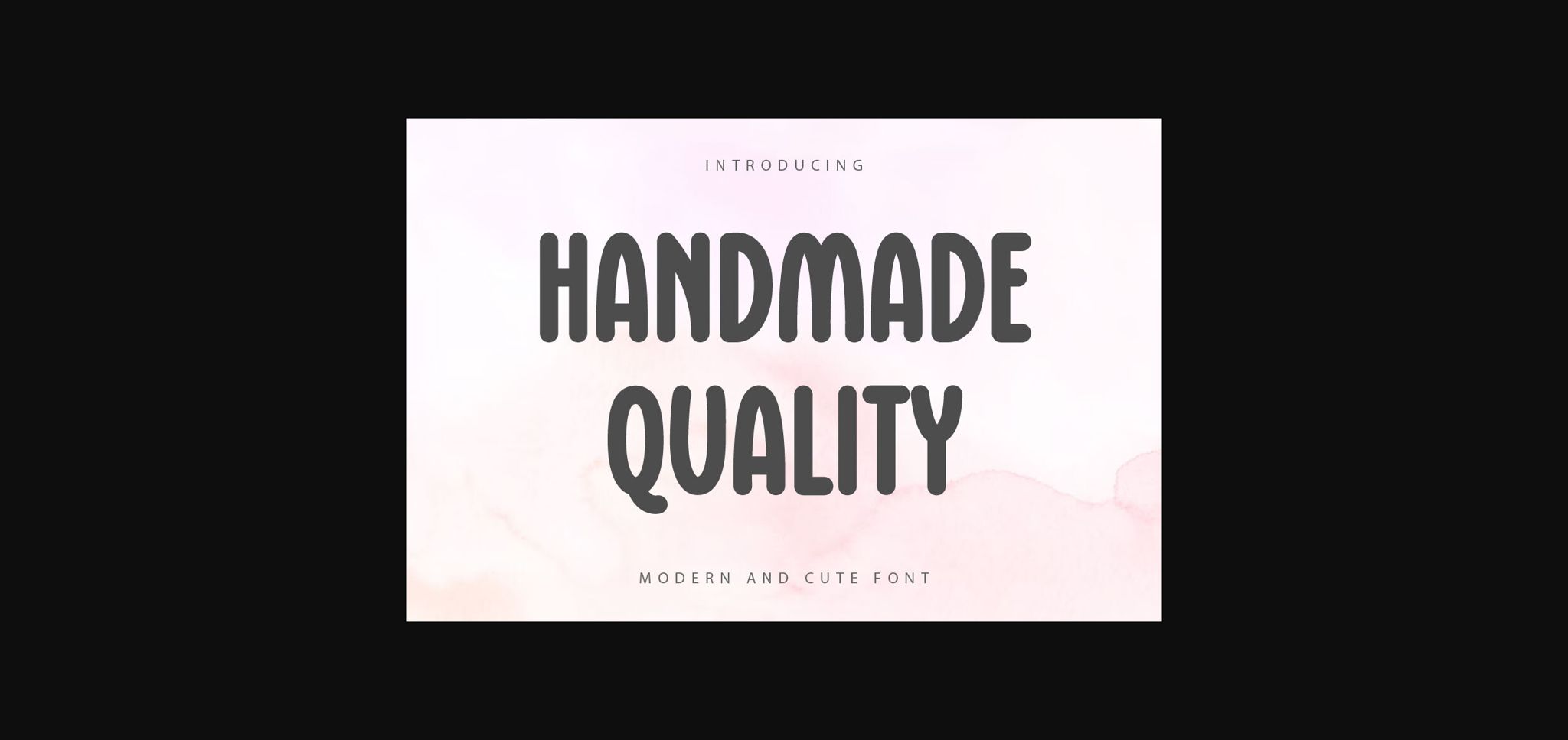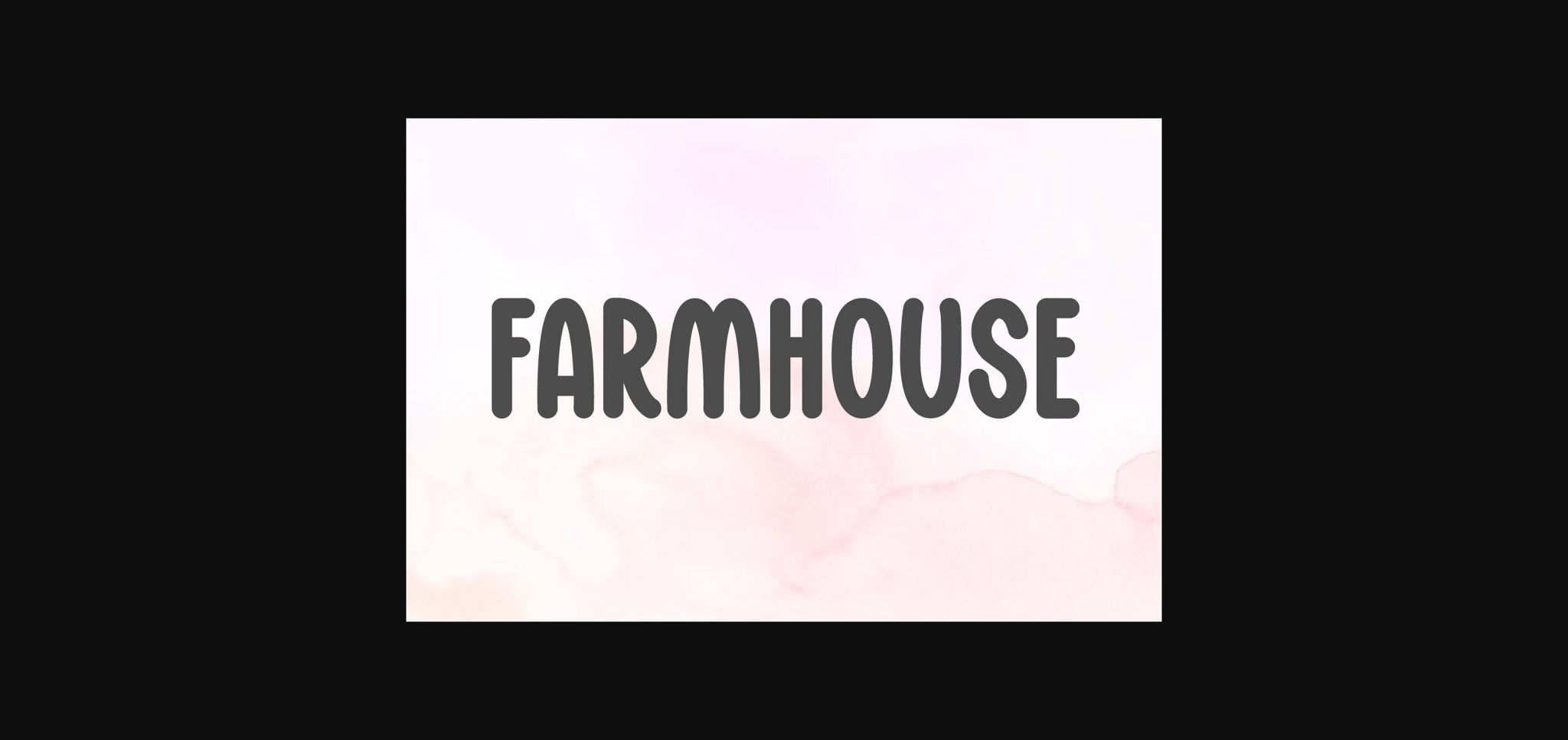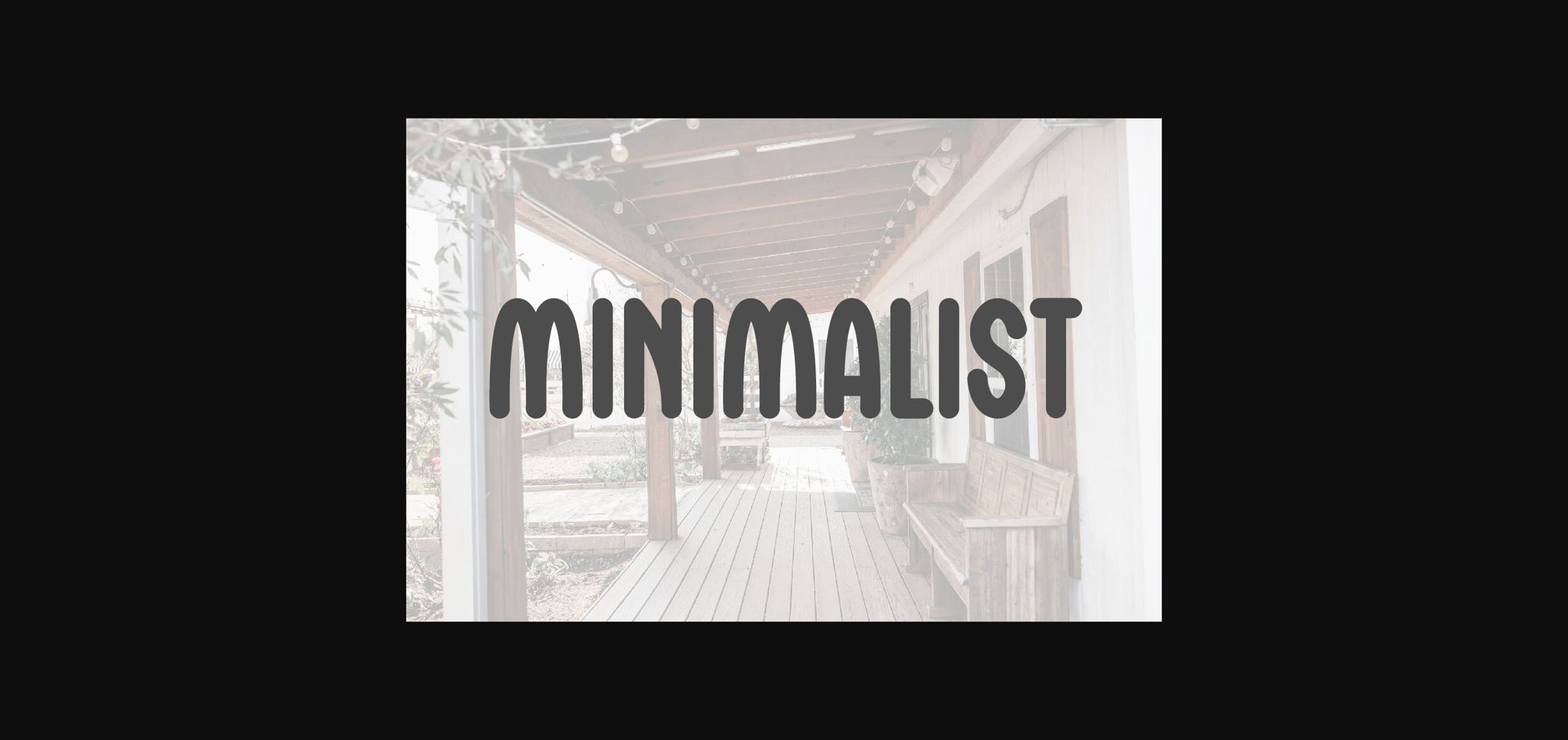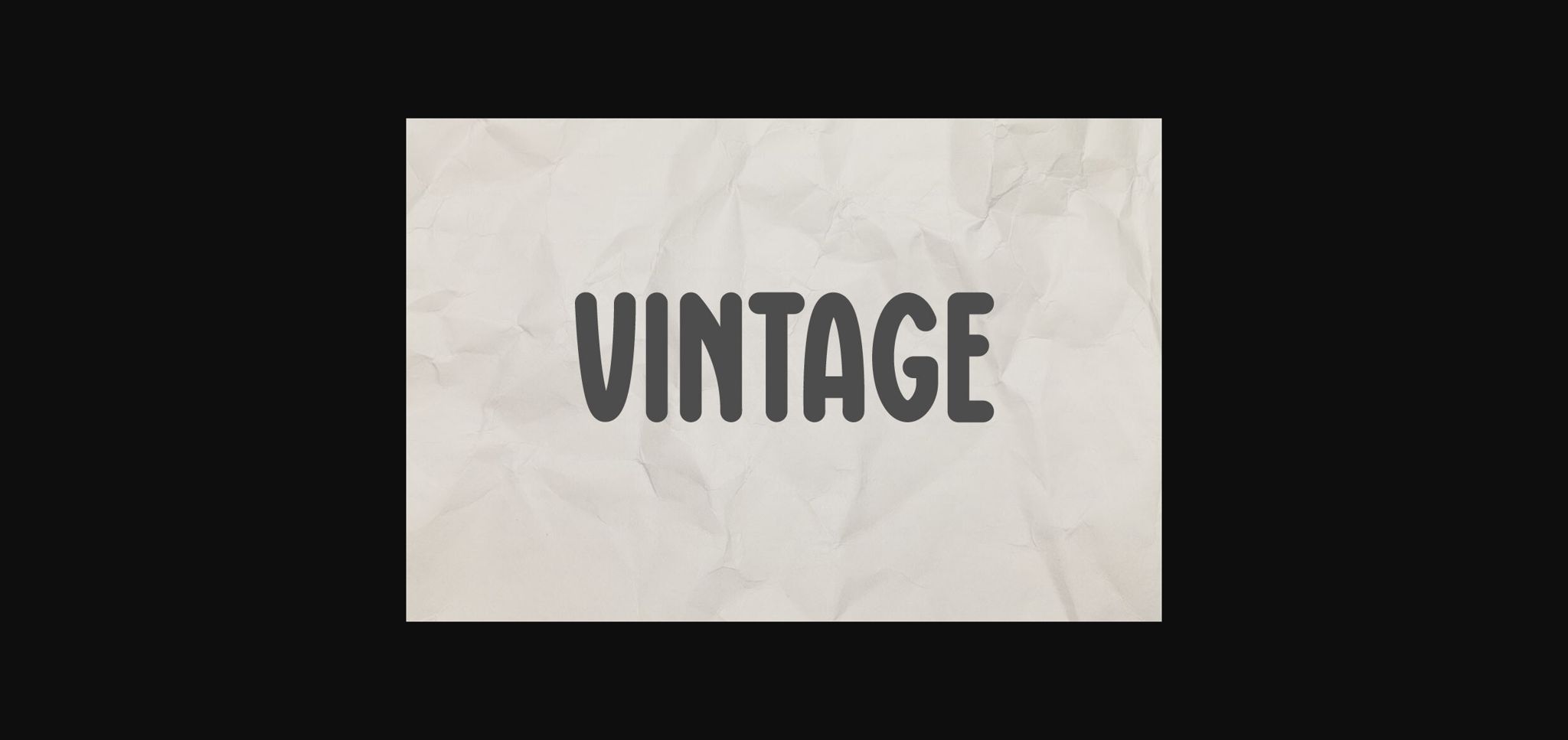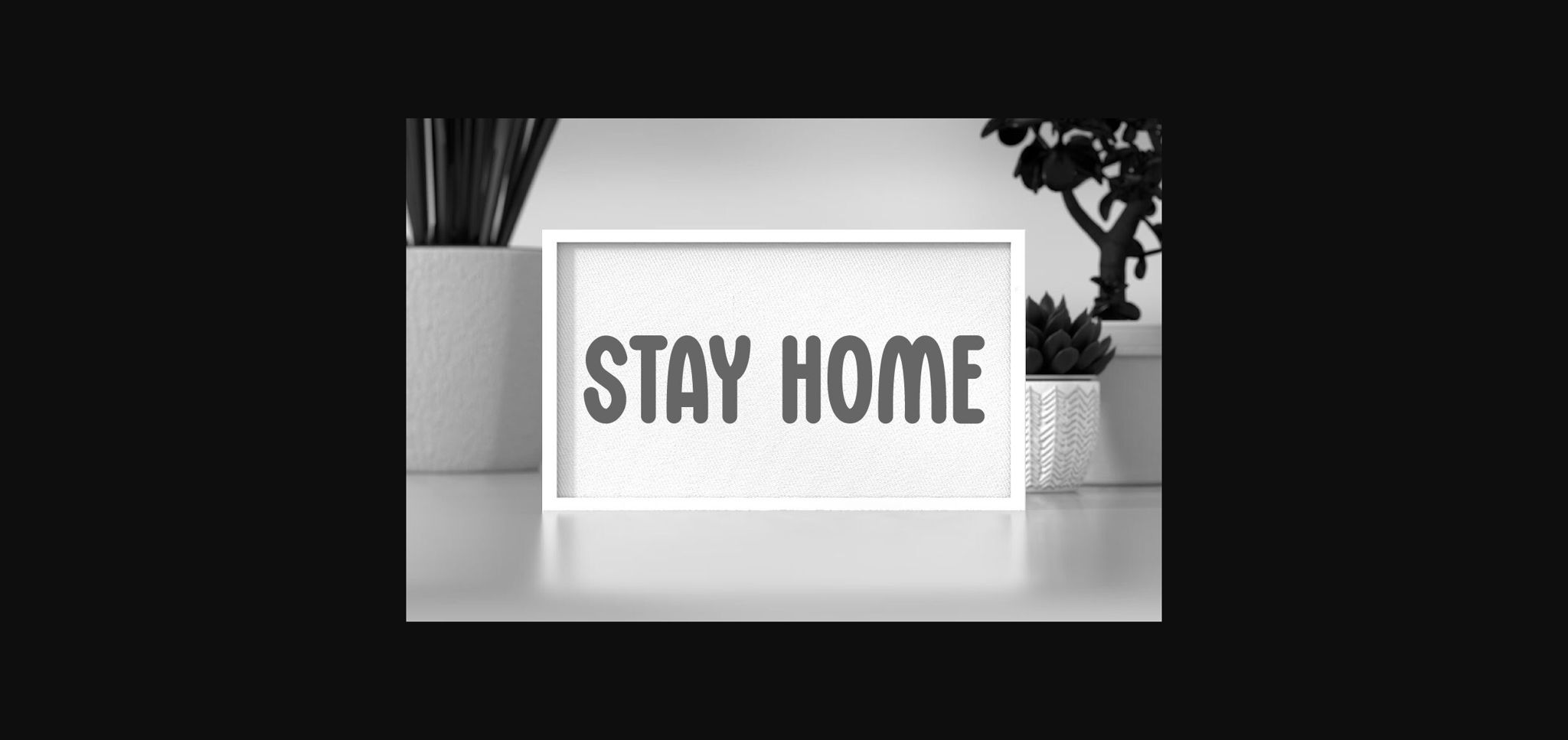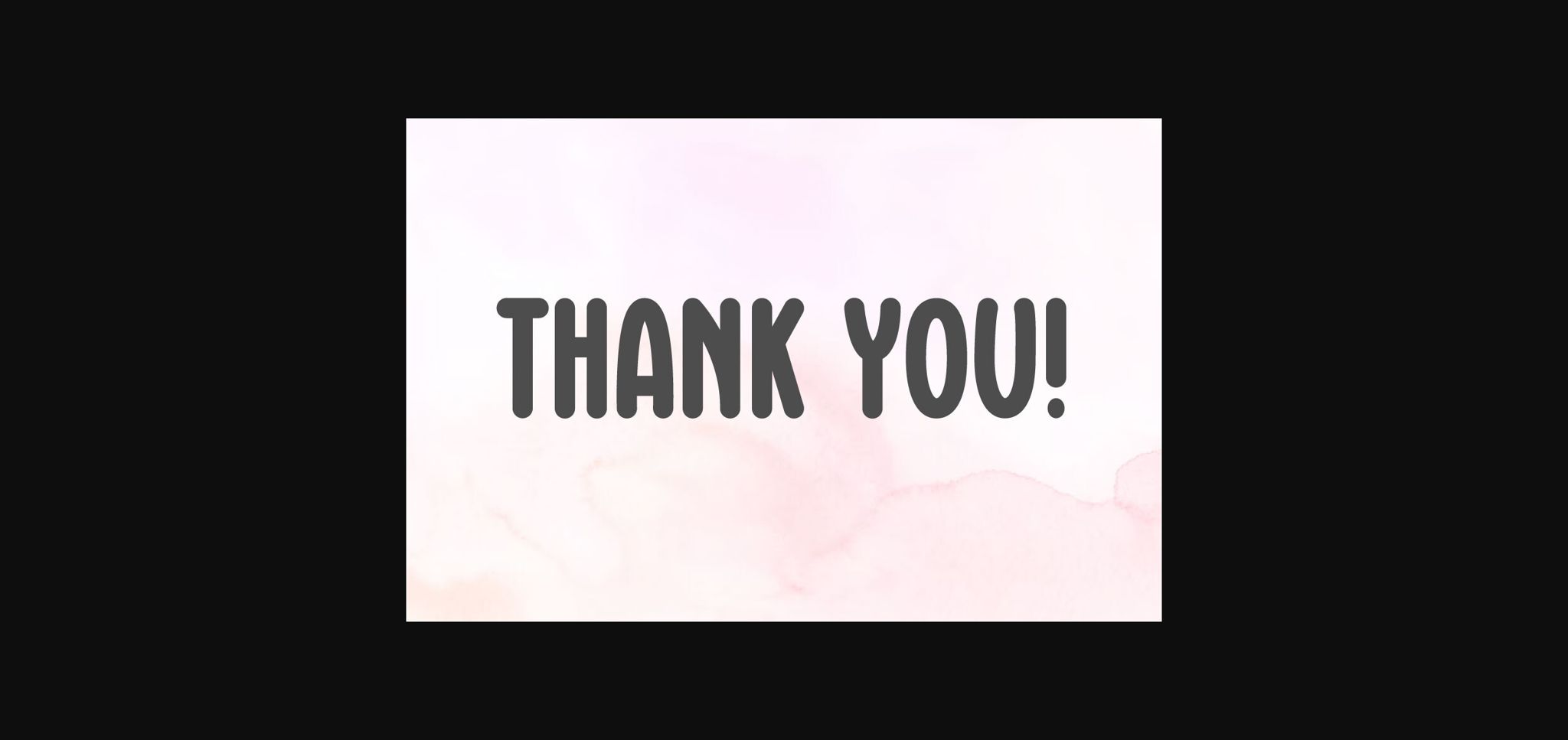
HomeSans Serif FontsHandmade Quality Font Sans Serif Fonts Handmade Quality Font FacebookXPinterestWhatsApp 1 of 8 ... Handmade Quality Font Poster 2... Handmade Quality Font Poster 3... Handmade Quality Font Poster 4... Handmade Quality Font Poster 5... Handmade Quality Font Poster 6... Handmade Quality Font Poster 7... Handmade Quality Font Poster 8... About Handmade Quality Font Handmade Quality is a modern and cute sans serif font, this font is perfect for greeting cards, weddings, gift labels, mugs, t-shirts, quotes, label, etc. Use it to create spectacular and interesting designs! DOWNLOAD NOW People also explored Taliga Font General Font Royal Butter Font Randomly Cute Font Children Writing Font Heyla Font Alleffra Font Bundle Calligraphy Pidafin 322 0 TagsHandmade Quality Font Previous articleHandmade Vangance FontNext articleMofulina Font LEAVE A REPLY Cancel reply Comment: Please enter your comment! Name:* Please enter your name here Email:* You have entered an incorrect email address! Please enter your email address here Website: Save my name, email, and website in this browser for the next time I comment. Personal Use Free Hysteria Santa Personal Use Free Read more about this font Boronic Personal Use Free Read more about this font Jabirah Personal Use Free Read more about this font Vuldo Personal Use Free Read more about this font BLOG 5 Fonts That Will Dominate Design Trends in 2026 5 Fonts for 2026 That Will Dominate Design Trends Typography plays a critical role in visual communication, and as we look ahead to 2026, it’s... Free Fonts Risk: Why Free Fonts Can Be Dangerous for Designers Top 10 Handwritten Fonts That Elevate Your Designs Modern Sans-Serif Fonts That Brands Love in 2025